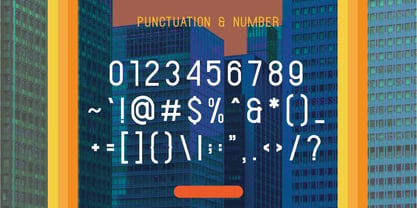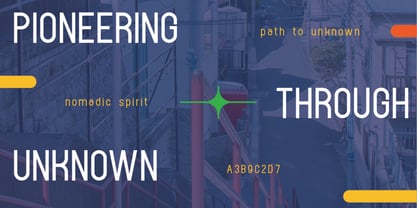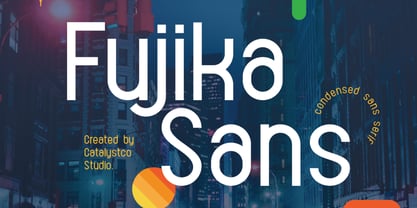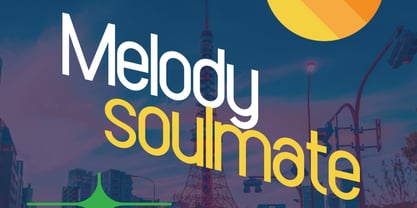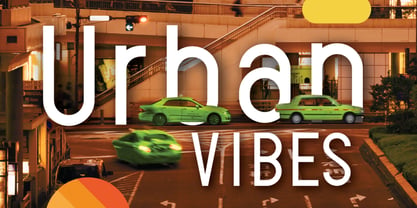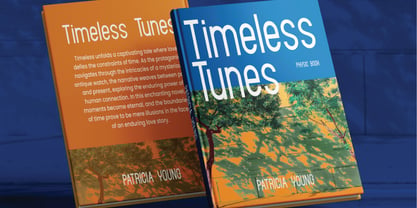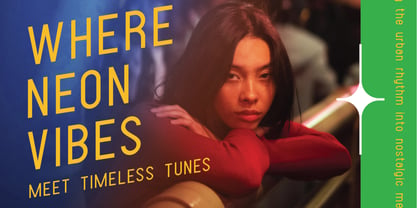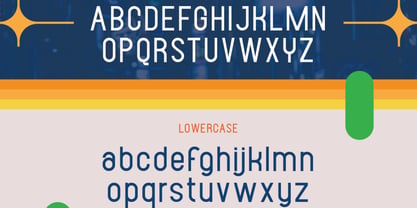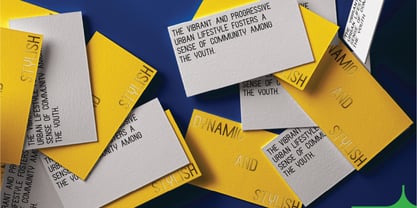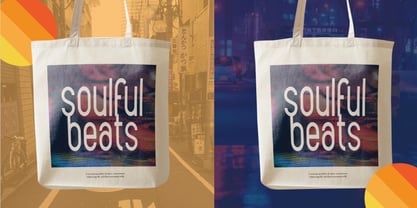
Fujika Sans
Fujika is a condensed modern sans serif typeface designed with clean lines, compact proportions, and a contemporary visual rhythm. The font includes uppercase and lowercase characters, numerals, punctuation, symbols, and multilingual support for broad usability. Fujika is relevant for modern design projects that demand clarity, efficiency, and a strong typographic presence. It performs well in branding systems, headlines, posters, websites, UI layouts, editorial compositions, and marketing materials where space-saving letterforms and a modern aesthetic are essential.